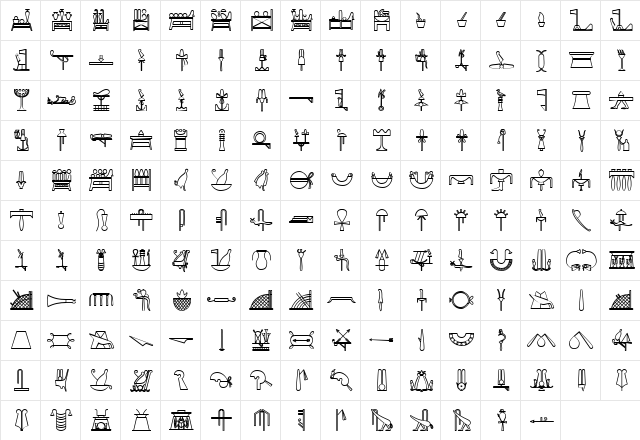
GlyphExtLibAA Bold Font Preview
GlyphExtLibAA Bold
GlyphExtLibAA Bold Font Details
Design Context for GlyphExtLibAA Typeface
GlyphExtLibAA is a composed and adaptable typeface that performs quietly and consistently across a wide range of design contexts. The heavy weight commands attention and anchors typographic hierarchies.